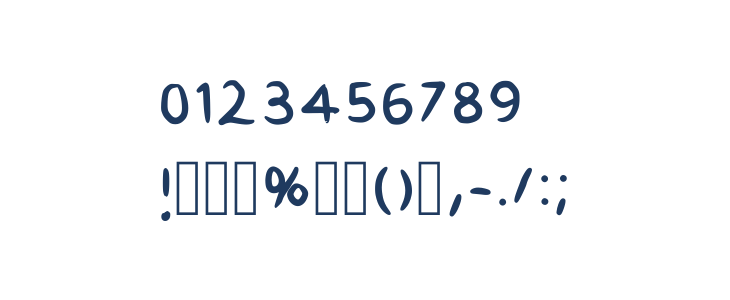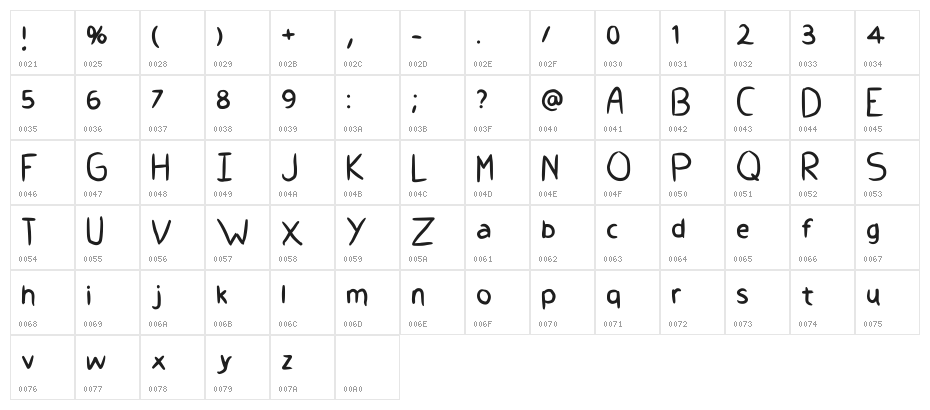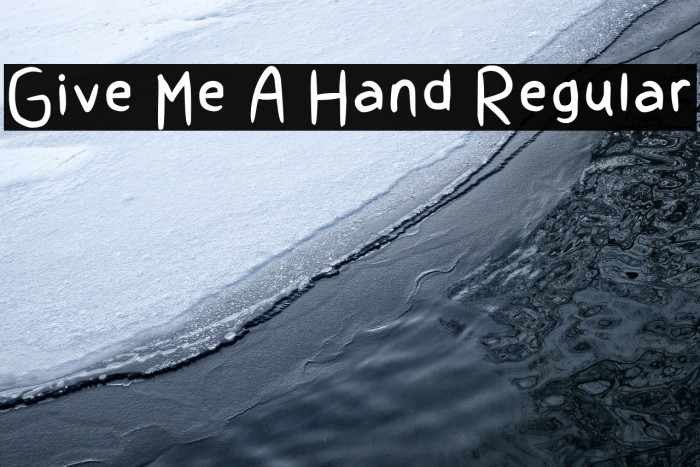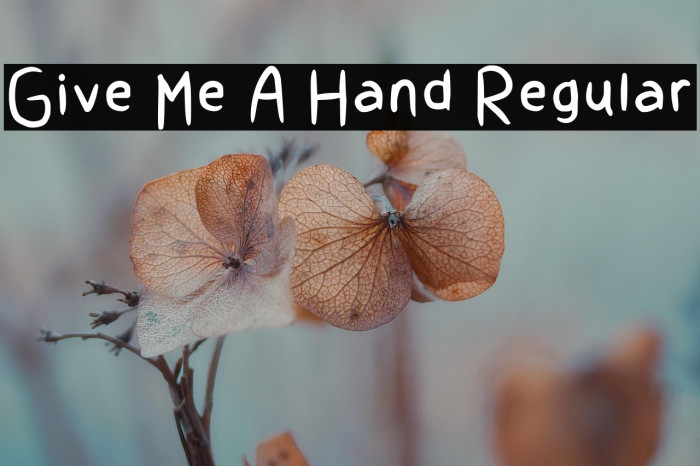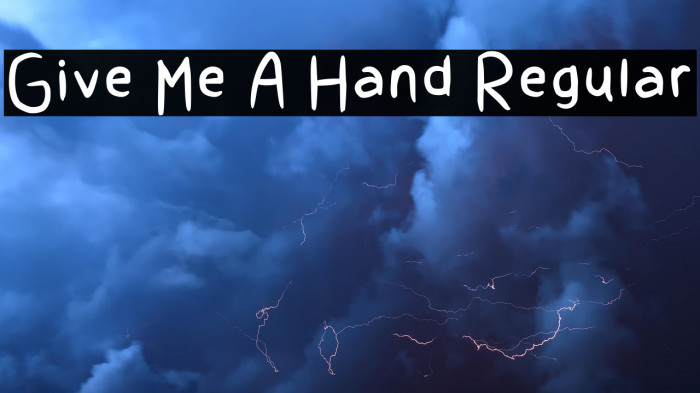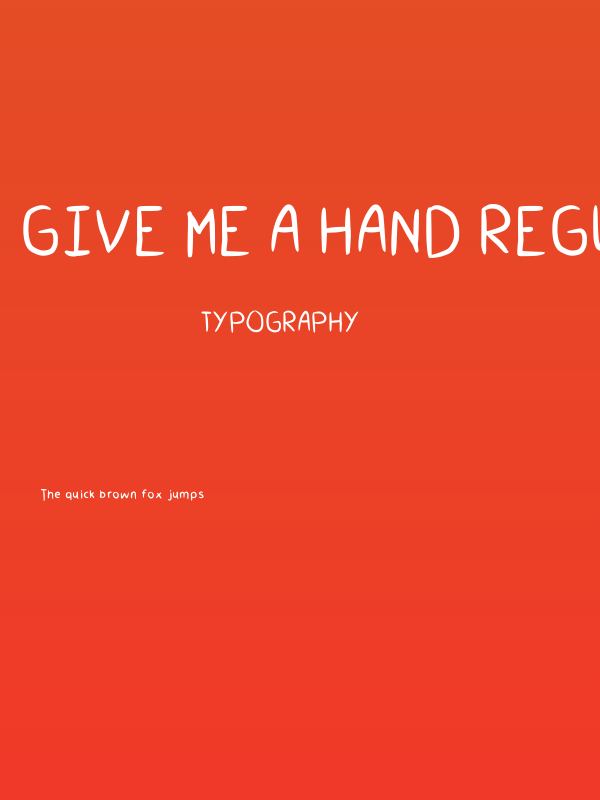
Give Me A Hand Regular Font
Give Me A Hand Regular Description
This font features a playful, handwritten style that exudes a casual and friendly vibe. The characters are slightly irregular, giving it an authentic, hand-drawn appearance. The strokes are consistent in thickness, contributing to a cohesive look across both uppercase and lowercase letters. The numerals and special characters maintain the same whimsical style, making it versatile for various informal applications. Its approachable design makes it ideal for projects that require a personal touch.
Overall StyleCasual
Use CaseHeadlines, Informal text, Personal projects
Proposed ProjectsIdeal for greeting cards, children's books, personal blogs, and informal branding.